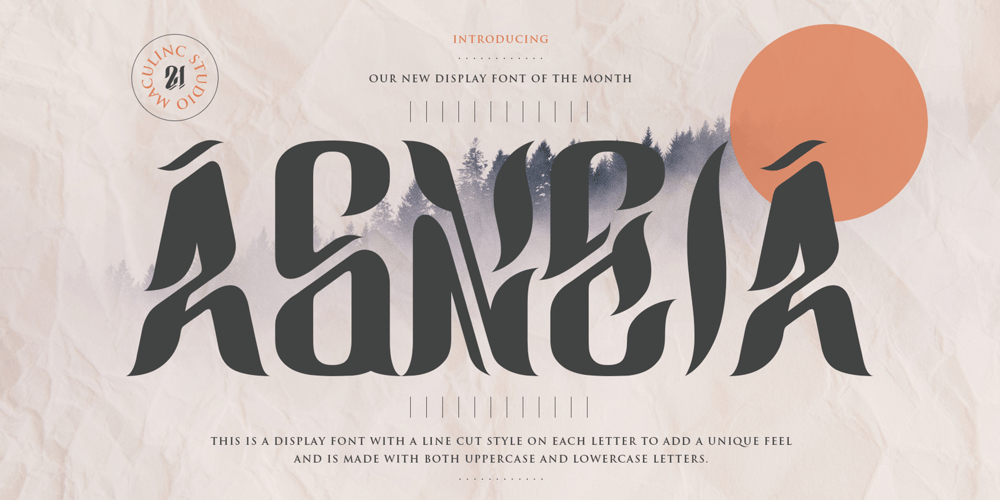
Agneia
Agneia font
Agneia Font Family was designed by Lukmanul Khikmatullah and published by Maculinc. Agneia contains 1 styles and family package options. Agneia is a display font with a line cut style on each letter to add a unique feel and is very helpful for layout design projects, posters, logos, brands, packaging, vintage and modern style designs or for any other design.Agneia is displayed in upper and lower case, and also comes with multilingual to support more of your needs.Email support: maculinc@gmail.comThank you! Maculinc